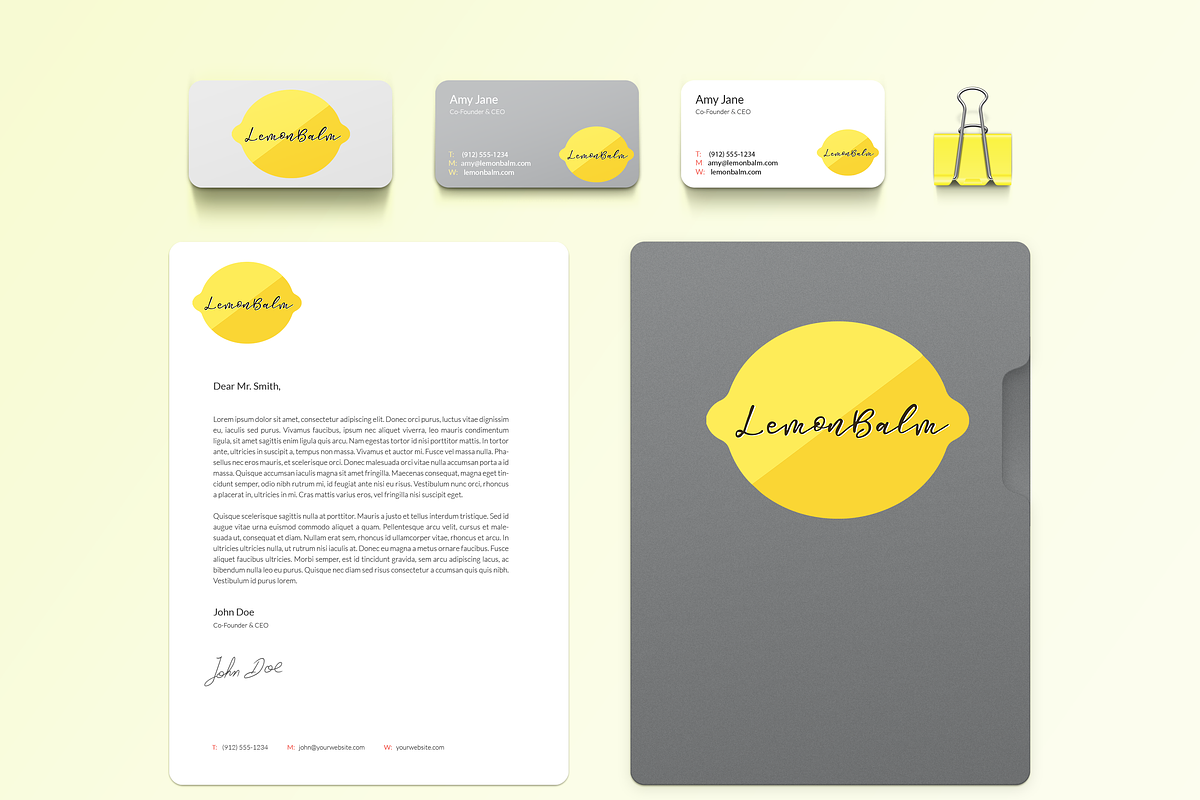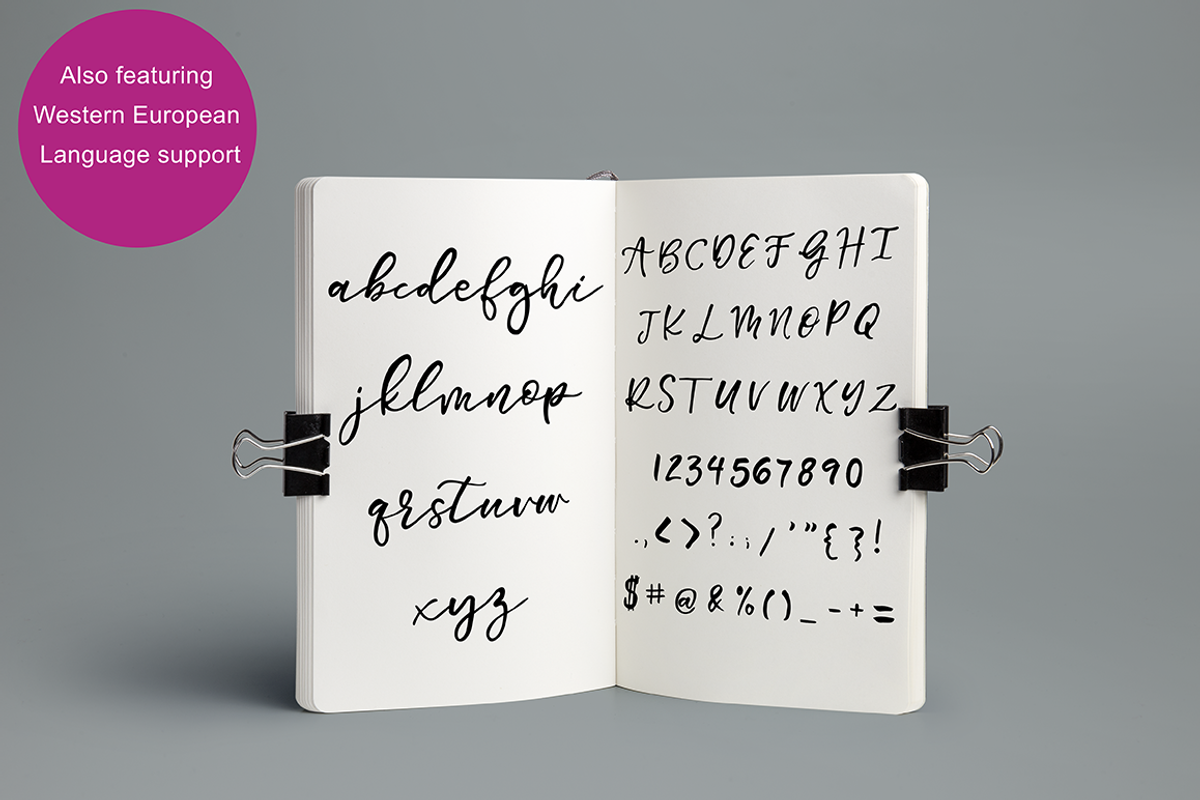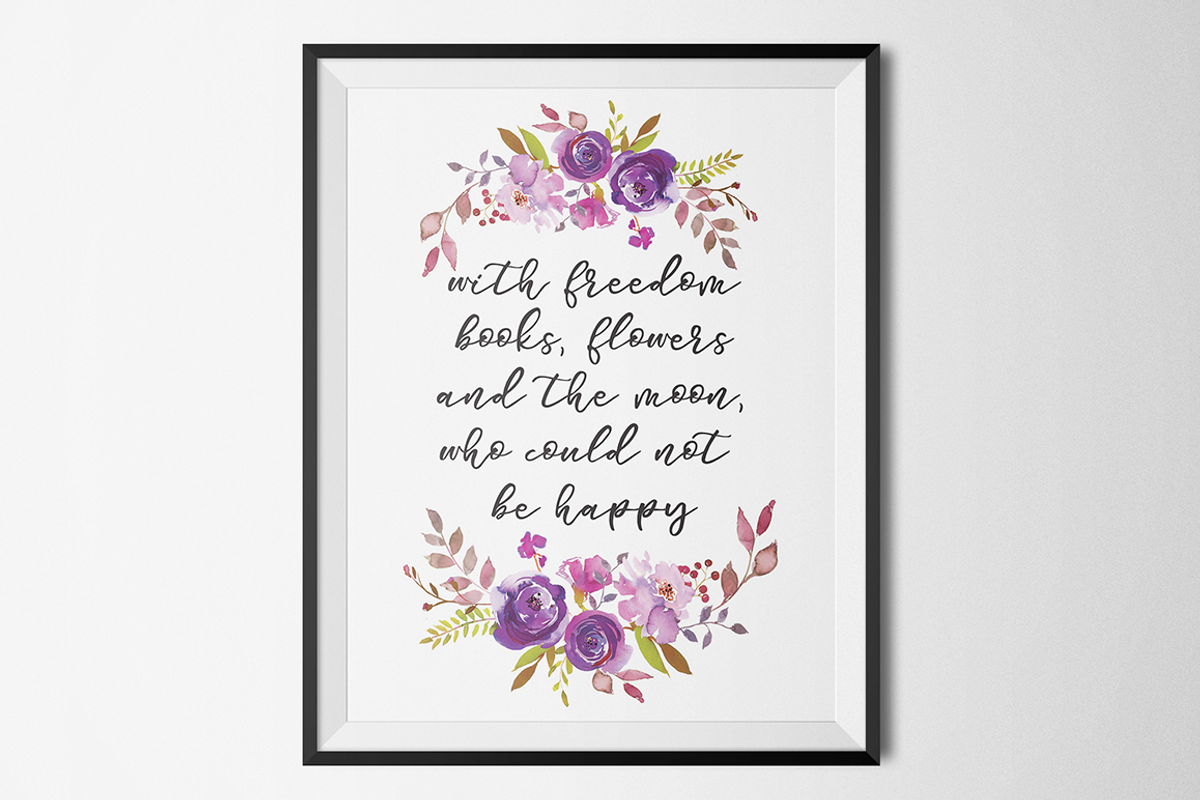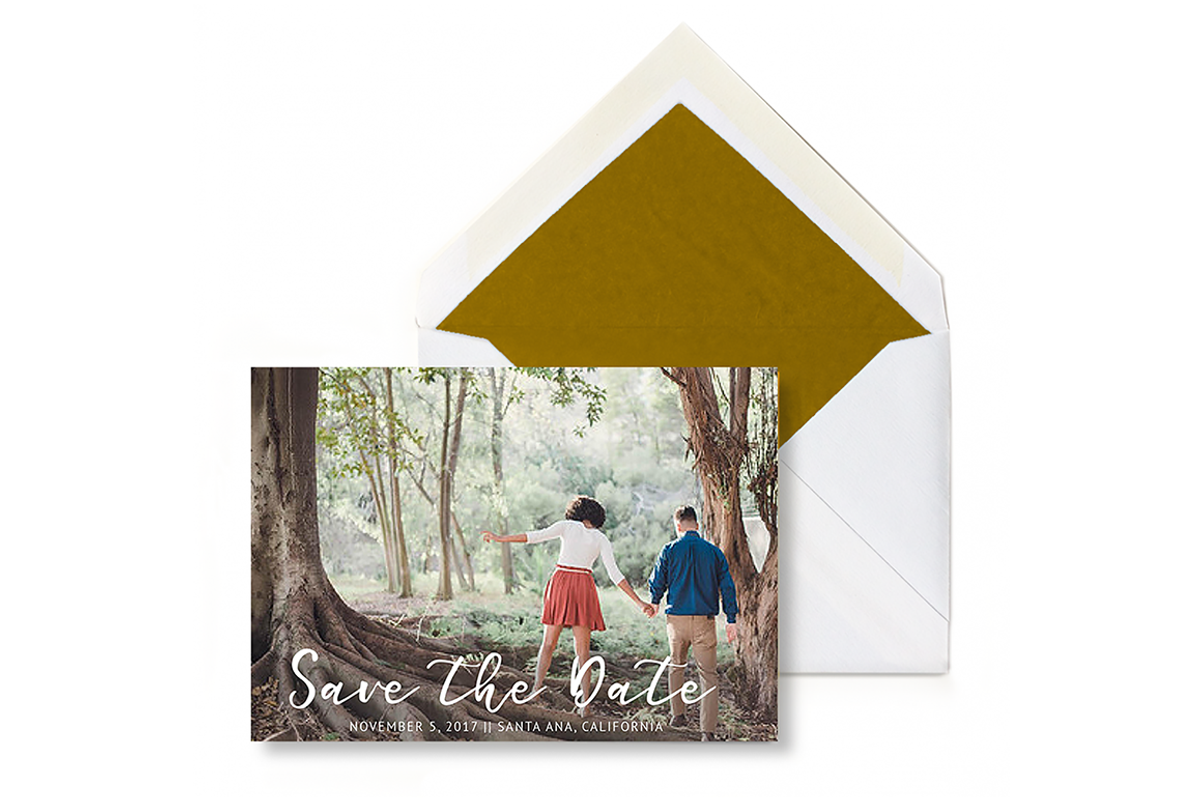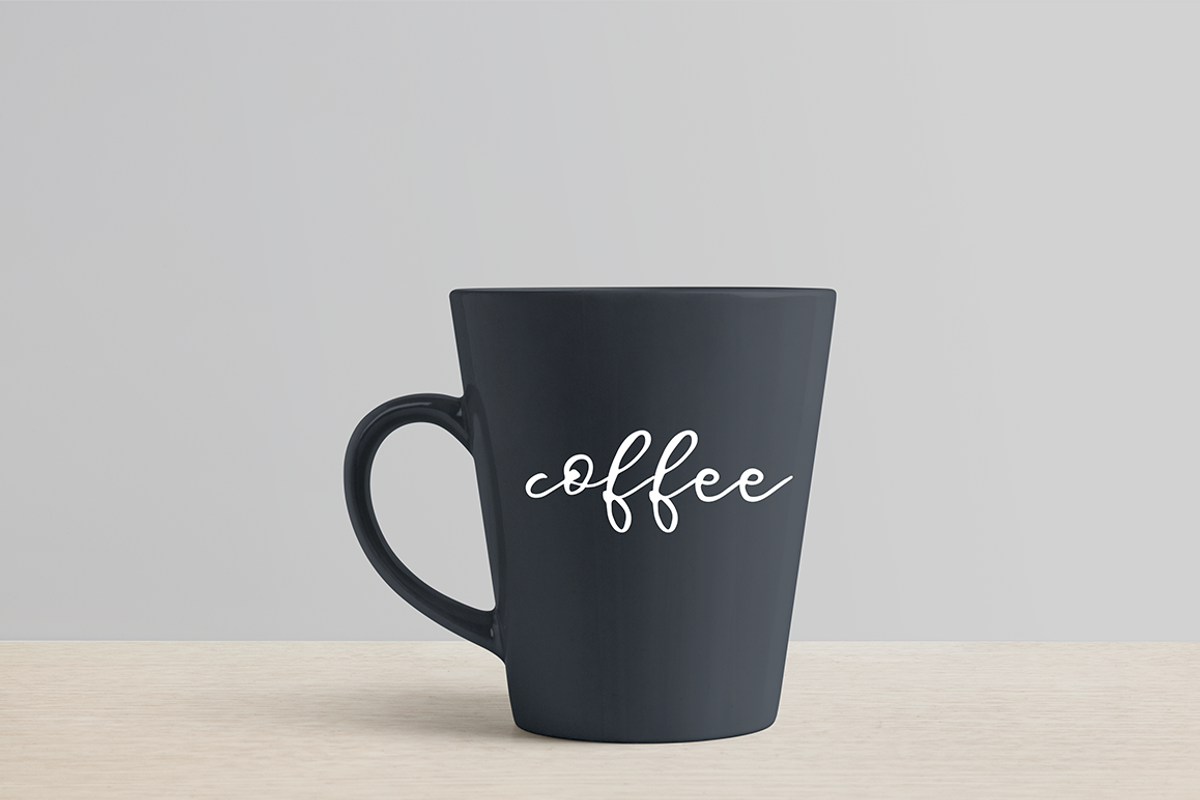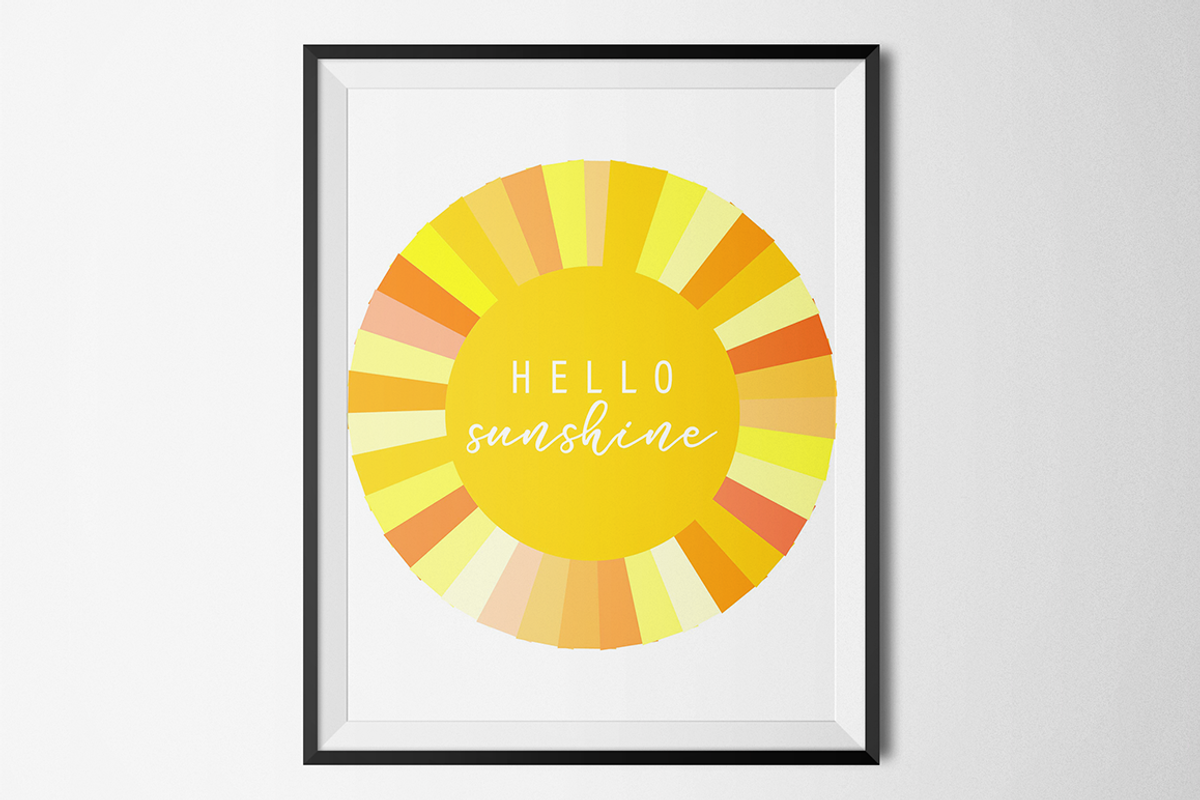
Summertime Romance Script Font
Introducing Summertime Romance, a carefree handwritten font. This font was made with ink then converted into a font. It is perfect for save the dates, wedding invitations, branding, products and so much more!
-Font includes accents (multilingual support)
- The font includes uppercase, lowercase, symbols, numbers, and accents for multilingual support.